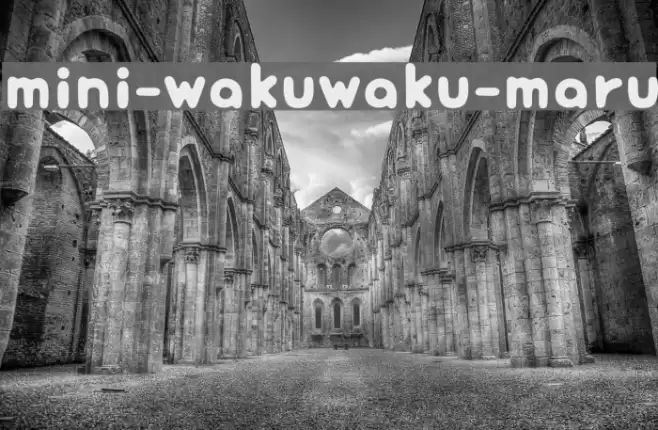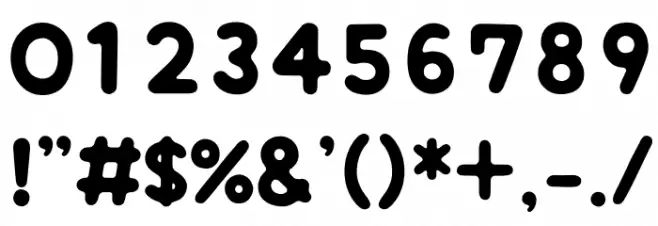
mini-wakuwaku-maru Font
mini-wakuwaku-maru Description
This playful and rounded font features bold, smooth curves that give it a friendly and approachable appearance. The characters are evenly weighted, with a consistent thickness throughout, contributing to a cohesive and harmonious look. The font's rounded edges and lack of sharp angles create a soft, inviting feel, making it ideal for projects that aim to convey warmth and friendliness. Its simplicity and clarity ensure readability, while the unique character shapes add a touch of whimsy and fun. The font includes a full set of uppercase and lowercase letters, numbers, and a variety of special characters, making it versatile for various design needs.
A playful, rounded font with bold, smooth curves and a friendly appearance from Uncategorized fonts.
- Overall Style: Playful